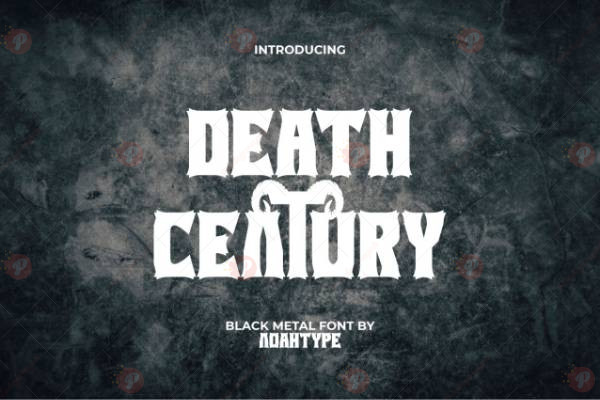
The Death Century Font Free is a bold gothic display typeface created for metal, horror, and dark-themed designs. With its sharp edges, heavy strokes, and dramatic style, it brings a sense of power, mystery, and intensity to your typography.
Perfect for band logos, horror movie posters, gaming graphics, tattoo designs, album covers, and dark branding projects, this font adds a grunge and gothic vibe that stands out.
If you’re working on metal music artwork, fantasy games, Halloween graphics, or edgy streetwear branding, the Death Century Font Free is your ultimate choice.
Typeface: Gothic / Display / Decorative
Style: Bold / Dark / Dramatic / Edgy
Perfect for: Metal Bands, Horror Posters, Tattoos, Gaming, Streetwear, Dark Branding